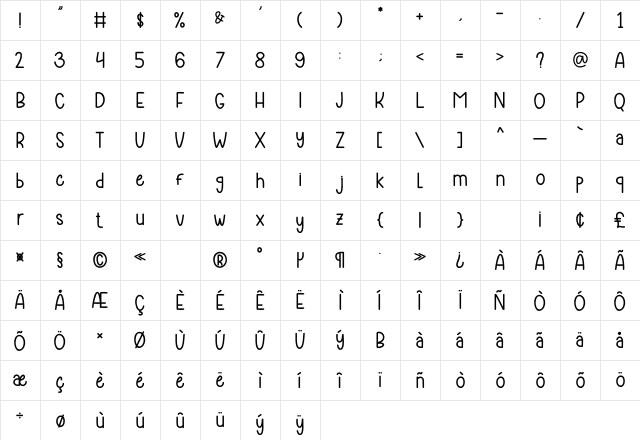
Winter Handmade Regular Free Font
Winter Handmade Regular
Design Context for Winter Handmade
Winter Handmade flows with the natural rhythm of handwritten lettering, making it ideal for designs that call for warmth and personal expression.
Font Pairing: Combine Winter Handmade with a simple geometric sans for maximum contrast - the tension between flowing curves and clean structure is a classic typographic pairing.